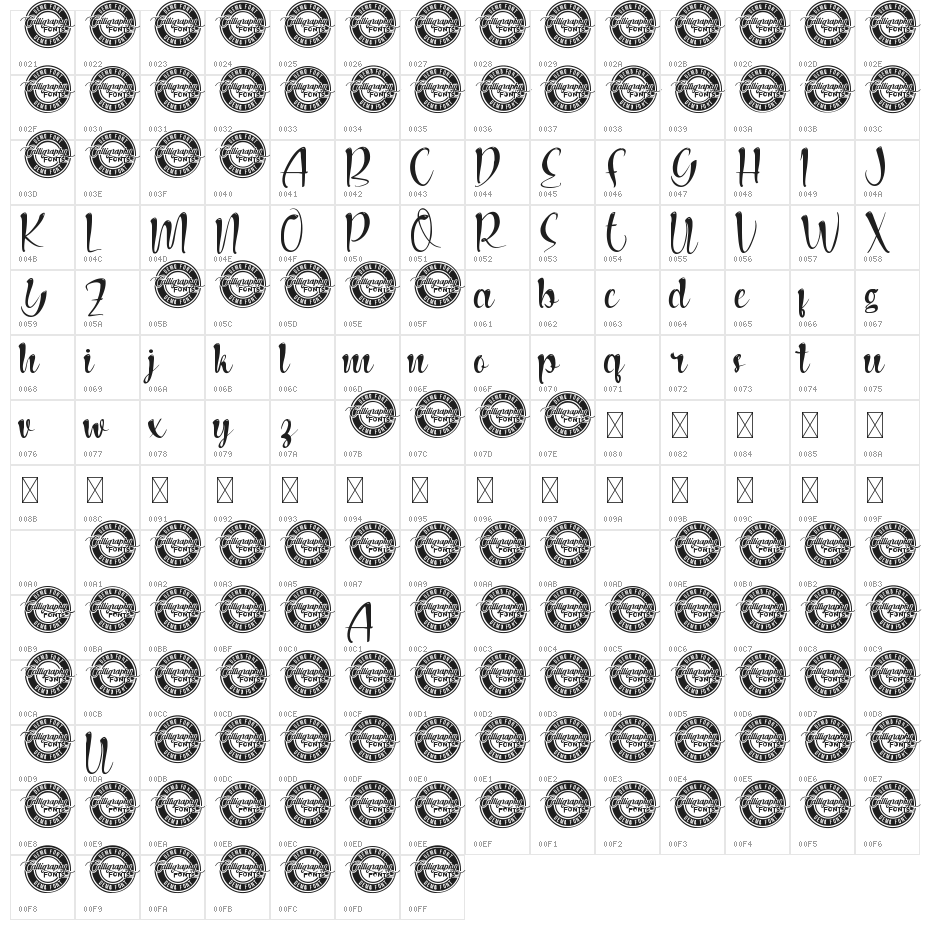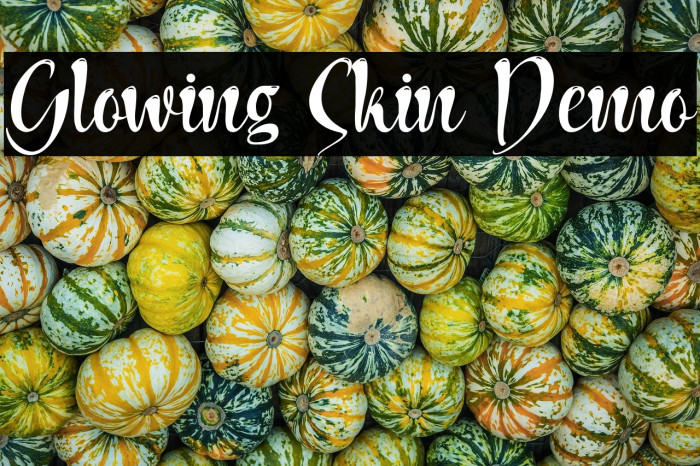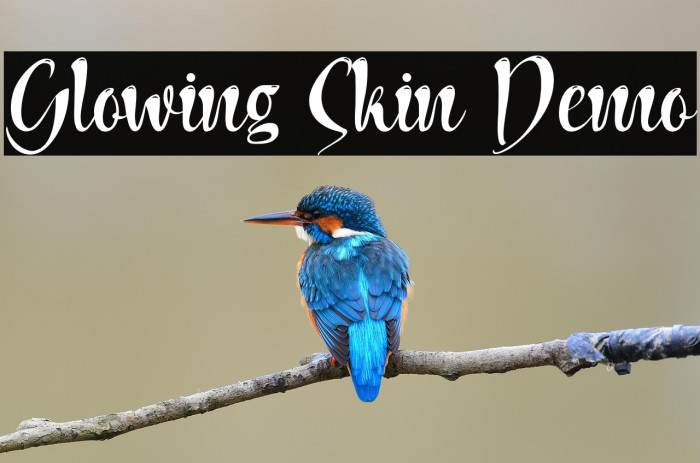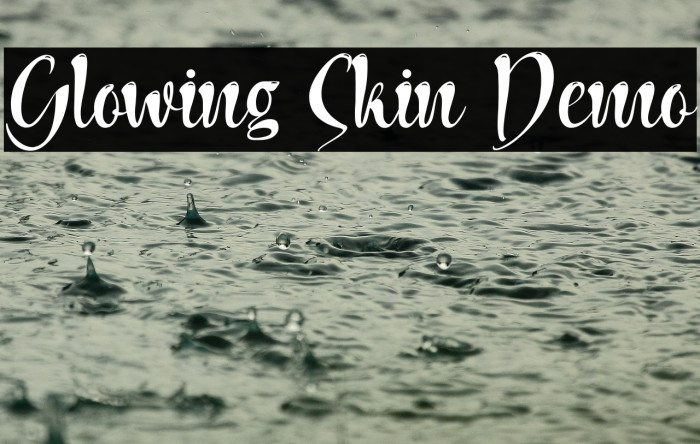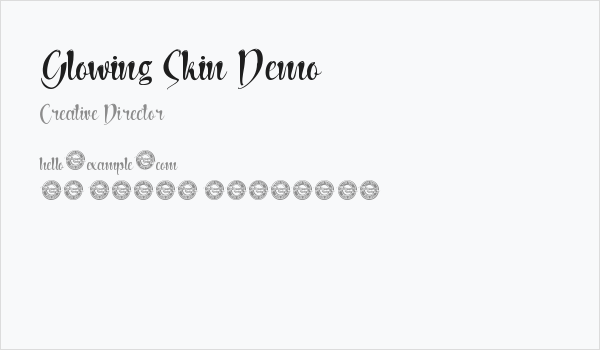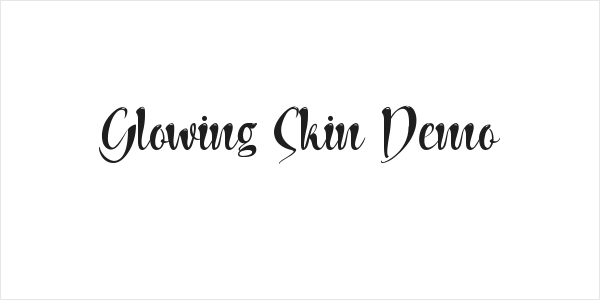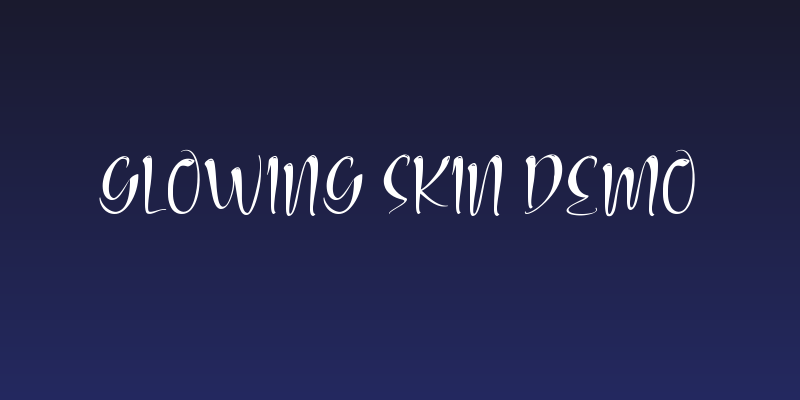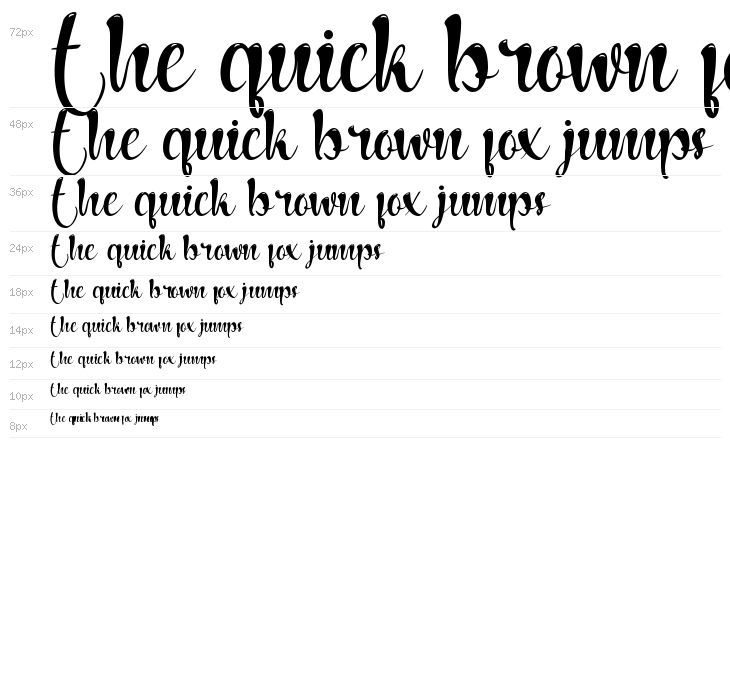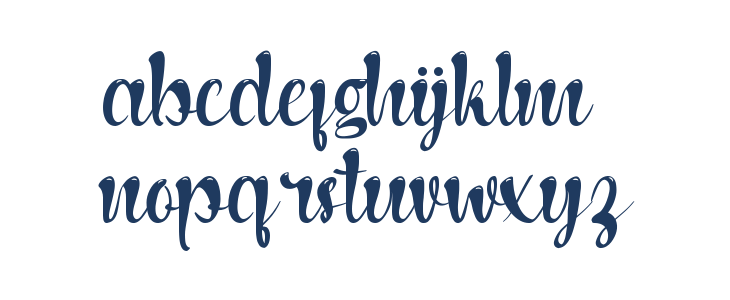
Glowing Skin Demo Font
Glowing Skin Demo Description
This font features a dynamic and expressive script style, characterized by its fluid and elegant strokes. The uppercase letters exhibit a graceful flow with varying stroke thickness, creating a sense of movement and sophistication. The lowercase letters maintain a consistent style, with some characters featuring distinctive loops and swashes that enhance the font's decorative appeal. The overall design is reminiscent of traditional calligraphy, yet it maintains a modern touch, making it versatile for various design applications. The font's bold appearance and high contrast between thick and thin strokes add to its visual impact, making it suitable for eye-catching headlines and artistic projects.